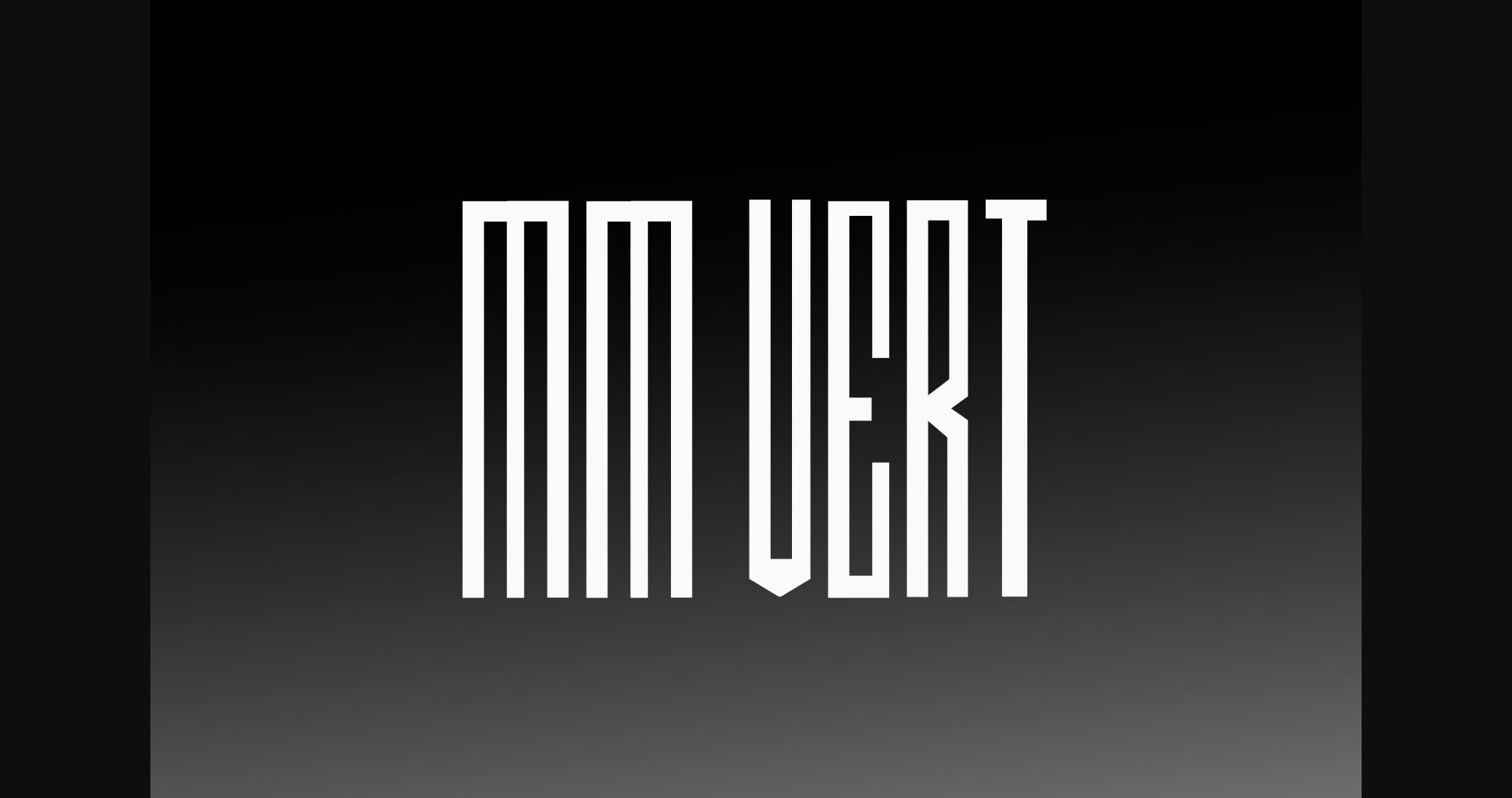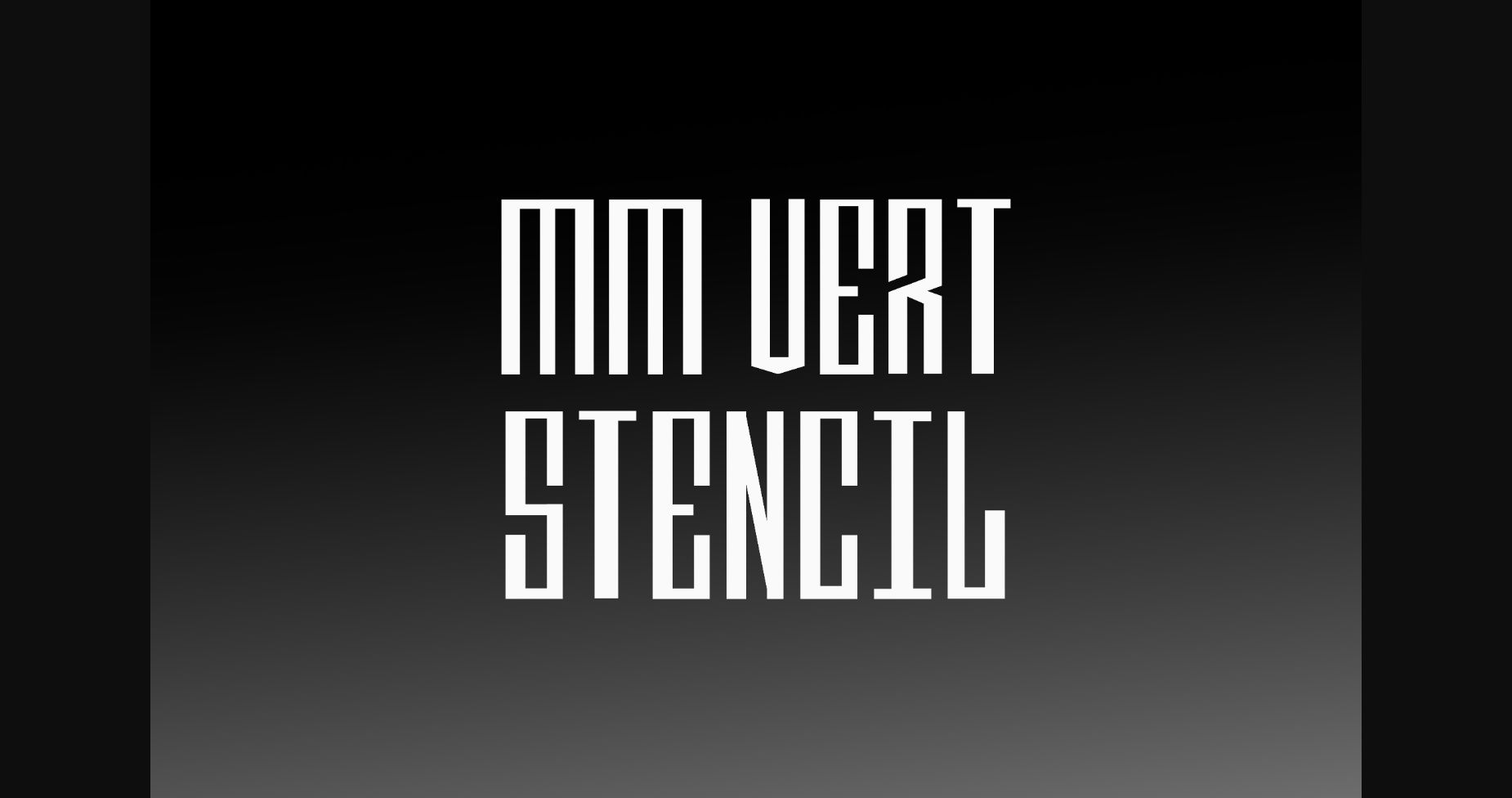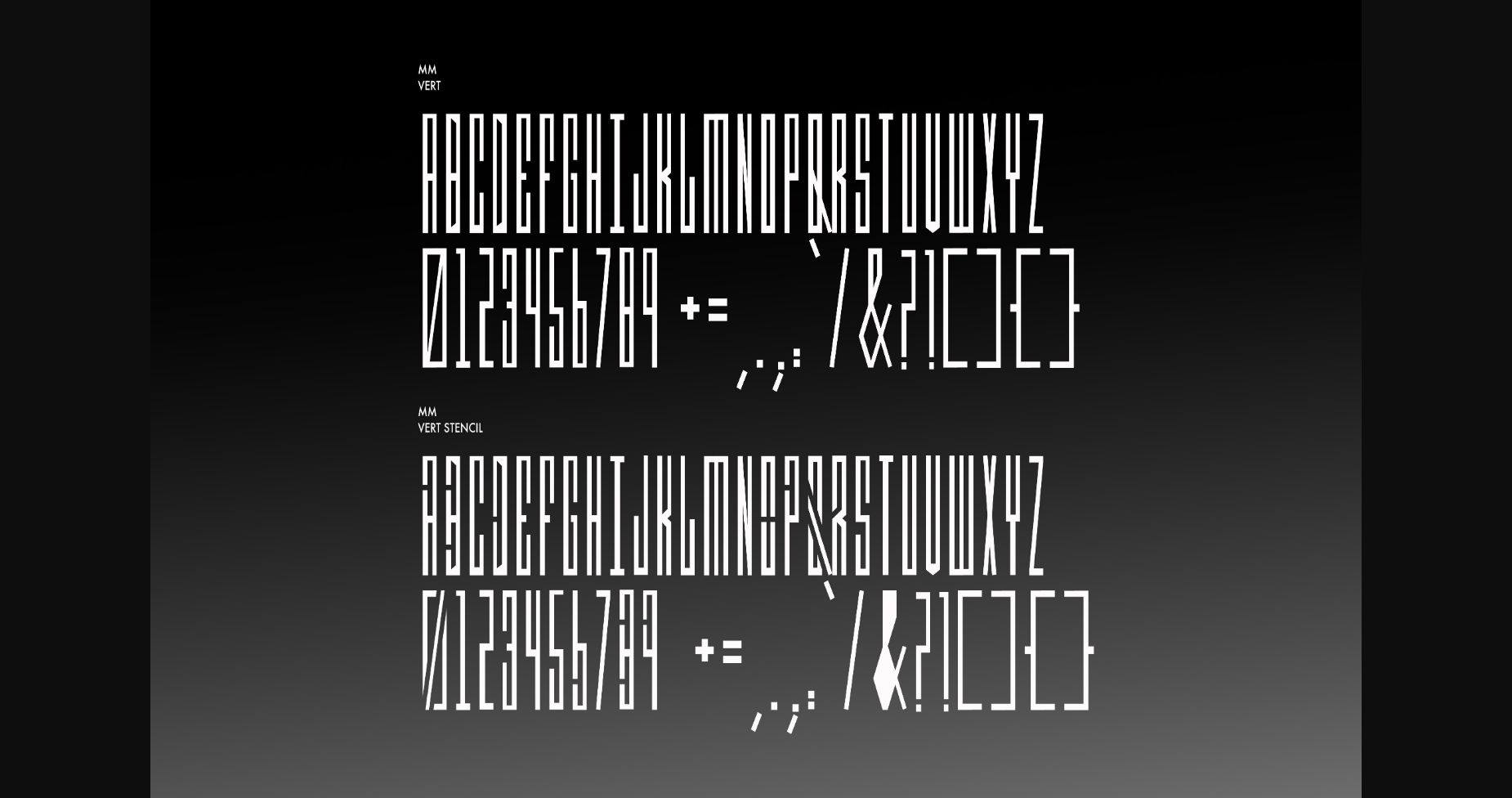
About MM Vert Font
MM Vert is a modern display font, featuring a bold and stencil version. Inspired by BMX half-pipes, constructivist posters, and urban skylines. MM Vert is a great option for your creative projects that demand attention, and an industrial vibe would be perfect.